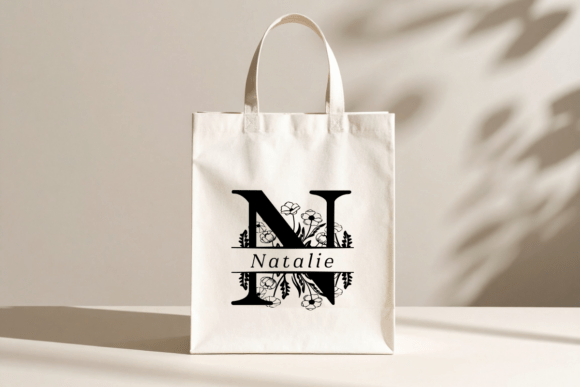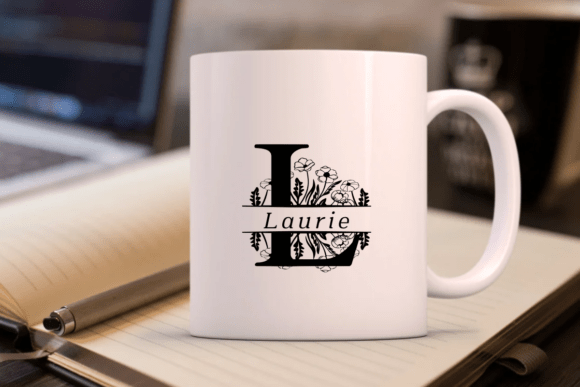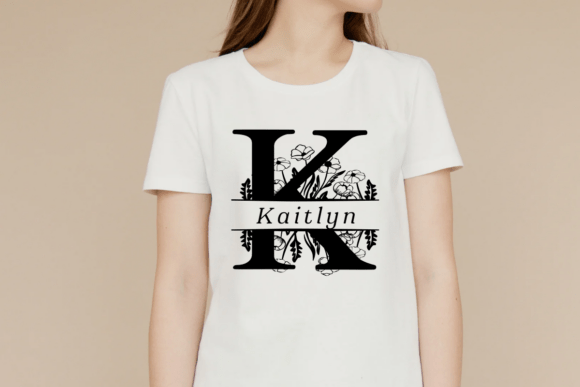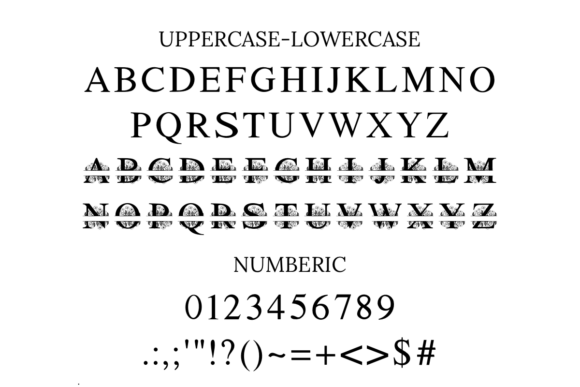
Introduction to Meadowly Font Font
Fonts play a crucial role in design, and the Meadowly Font font is a typeface that brings both character and versatility to any project. Whether you’re working on a branding project, a website, or a print design, the Meadowly Font font offers a unique style that can elevate your work.
| 👤 Author | Nun Sukhwan |
Meadowly is a lovely decorative font that captures the charm of whimsical design.
With elegant flourishes and playful details, it adds a touch of magic to invitations, greeting cards, and branding This enchanting typeface brings a soft, romantic feel to any creative project or message.
Key Features of Meadowly Font Font
Why Choose Meadowly Font Font?
The Meadowly Font font is more than just a typeface – it’s a design tool that helps you communicate your message with style and clarity. Its unique character set and versatile design make it suitable for a wide range of applications, from elegant invitations to bold headlines.
With its carefully crafted letterforms and balanced proportions, the Meadowly Font font ensures readability and visual appeal across all mediums.
What makes Meadowly Font font special?
The Meadowly Font font stands out with its unique design, exceptional readability, and versatility across various design applications.